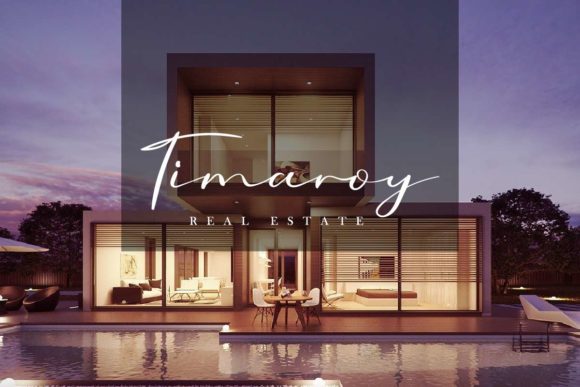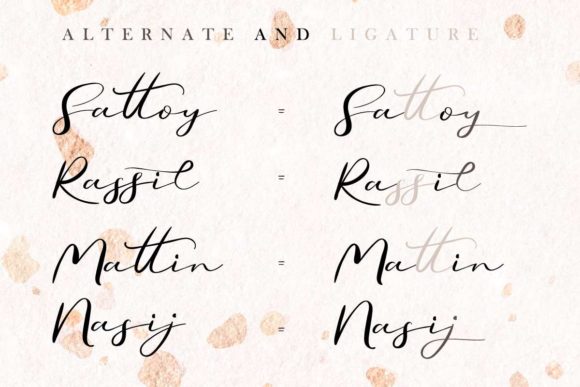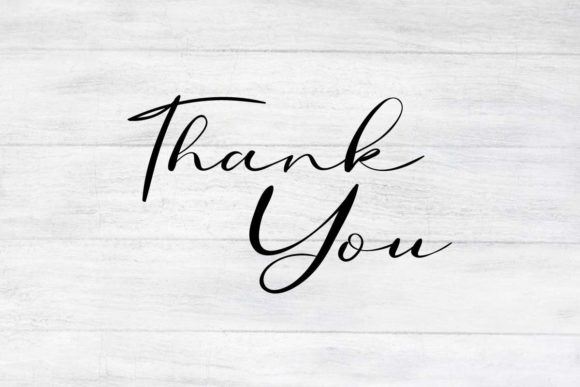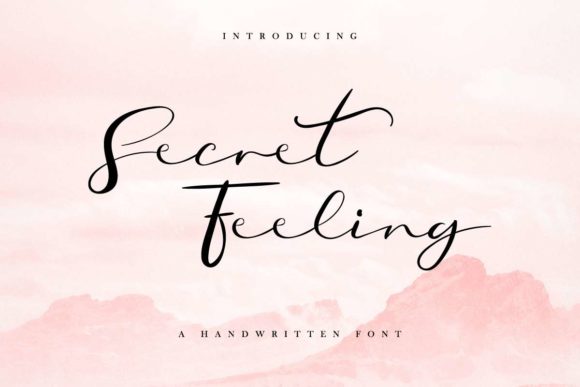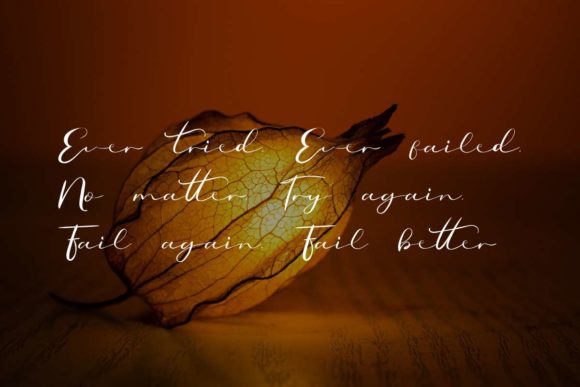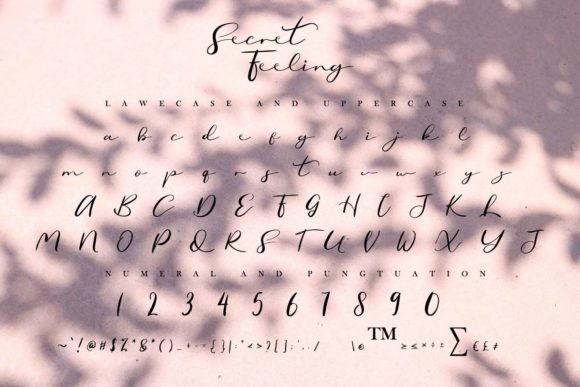
Secret Feeling Font
About Secret Feeling Font
Secret Feeling is a magical script font carefully created with a touch of elegance. This is a beautiful combination of timeless elegance and authentic calligraphy. It features an incredibly classic style, while still keeping a friendly feel. Secret Feeling is the perfect font for making original and outstanding designs.